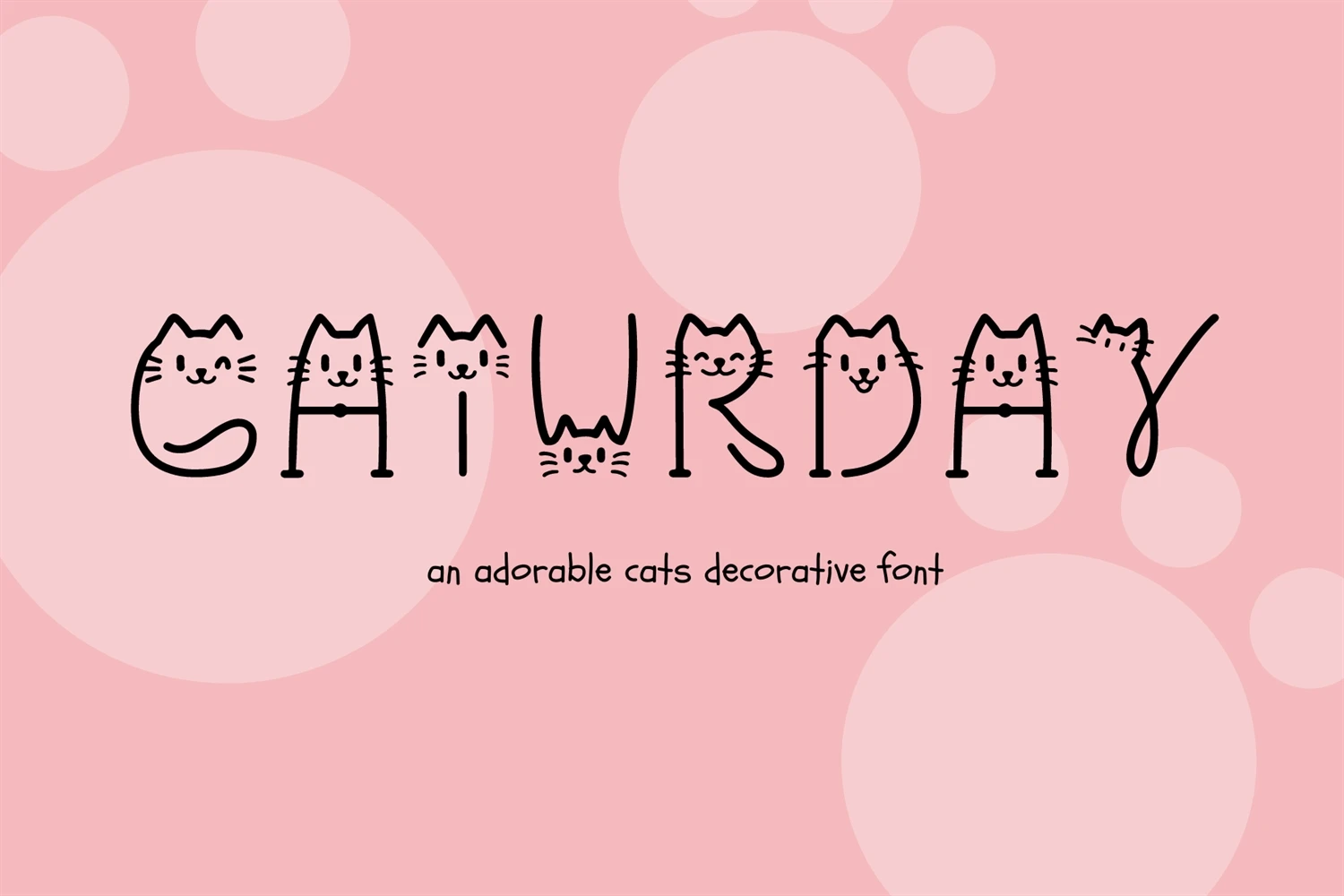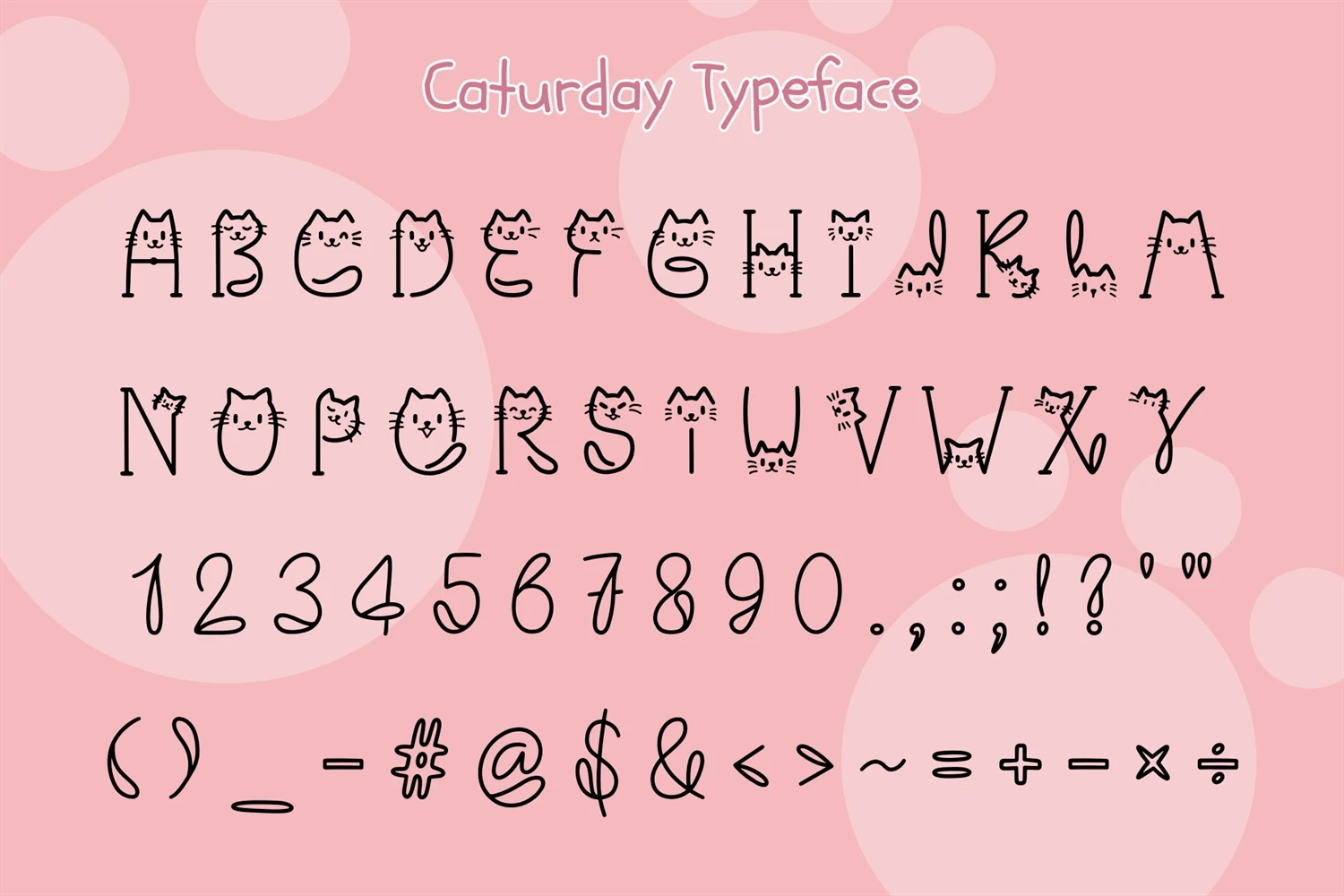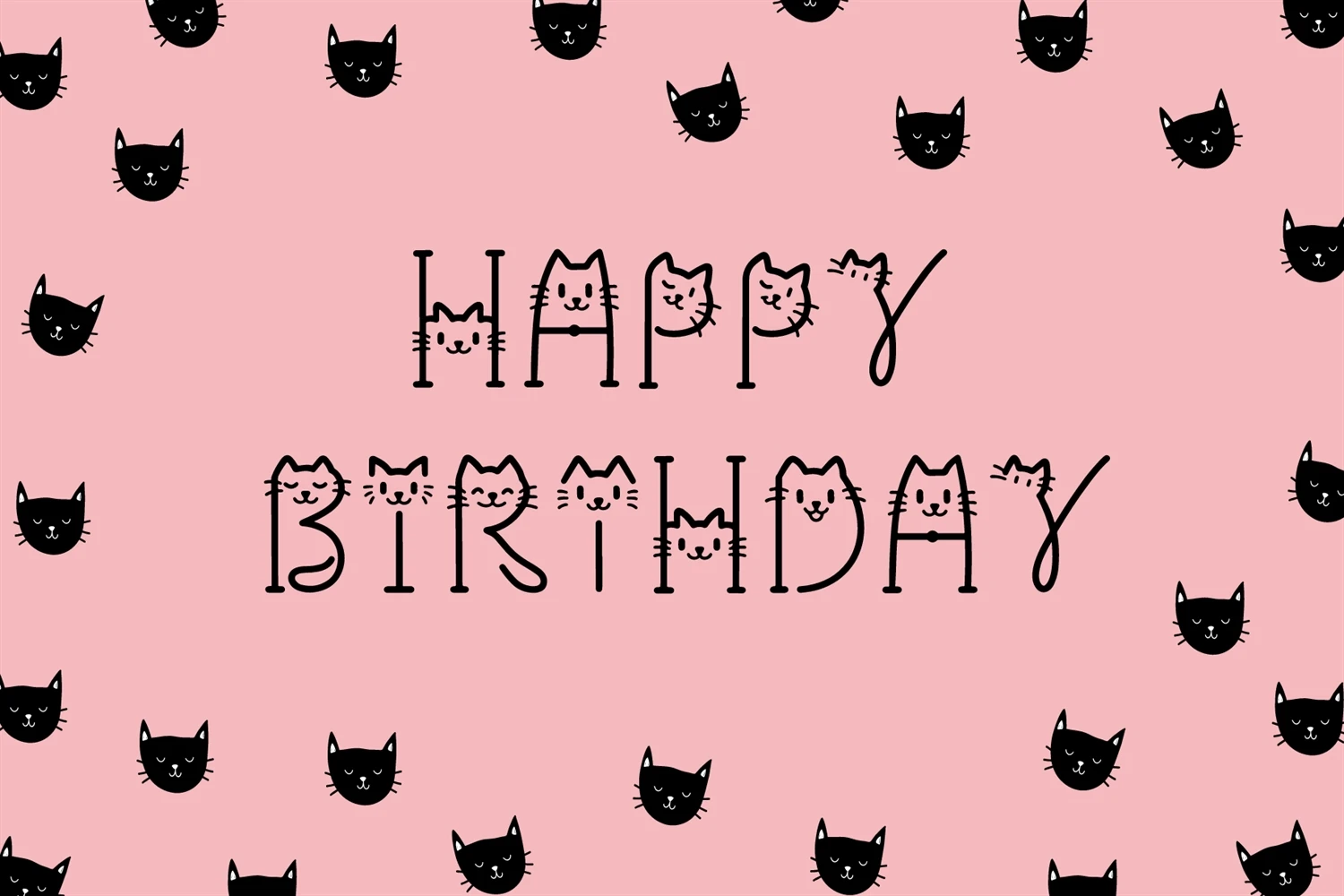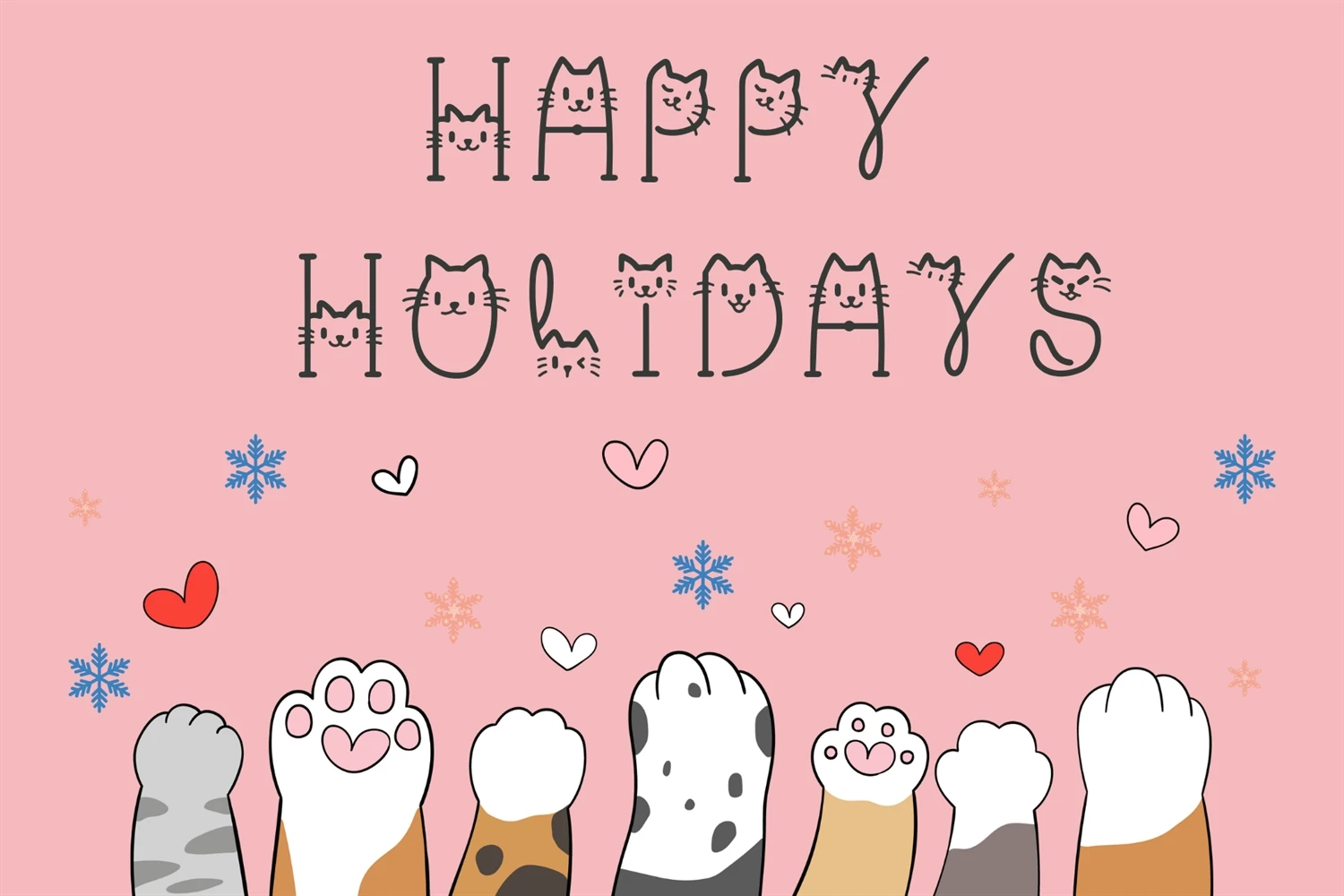
Caturday is an attractive and unique decorative font. Its whimsical details and delightful shapes make it perfect for anything cat-related, from pet products and services to childrens books and social media graphics. Ideal for adding a touch of fun and personality to any project.